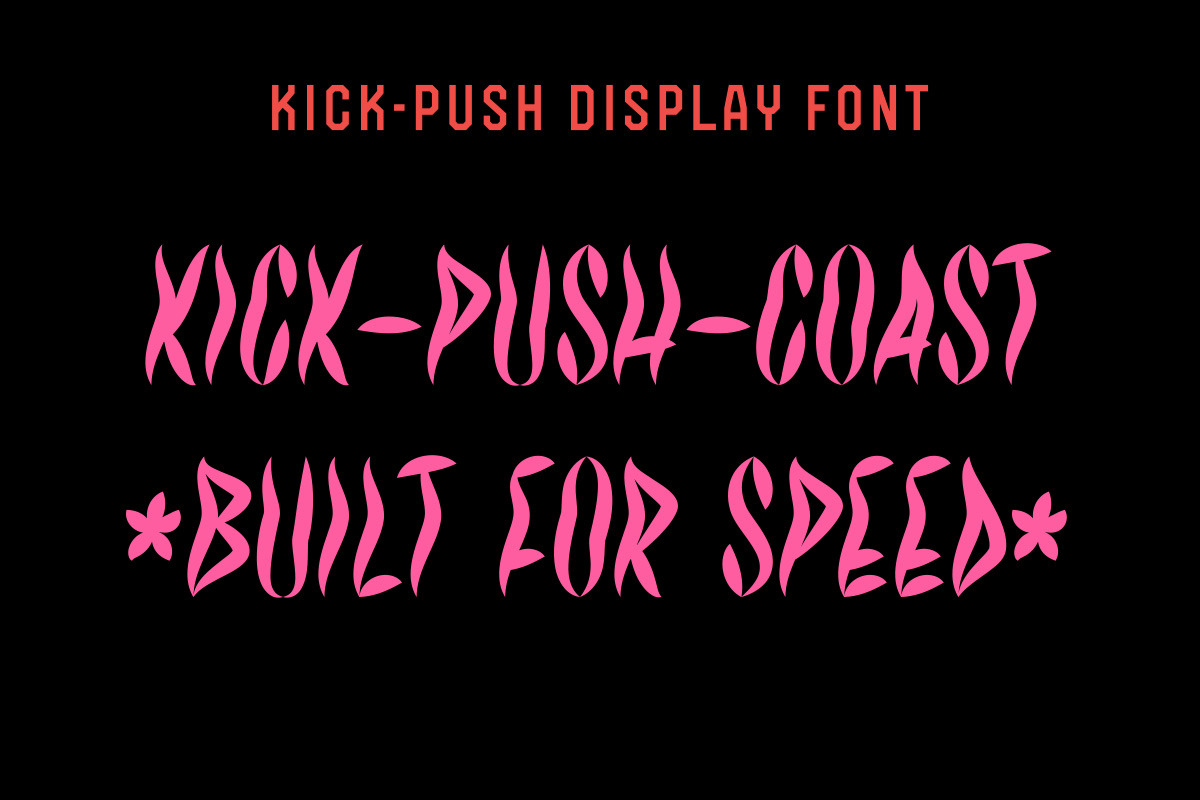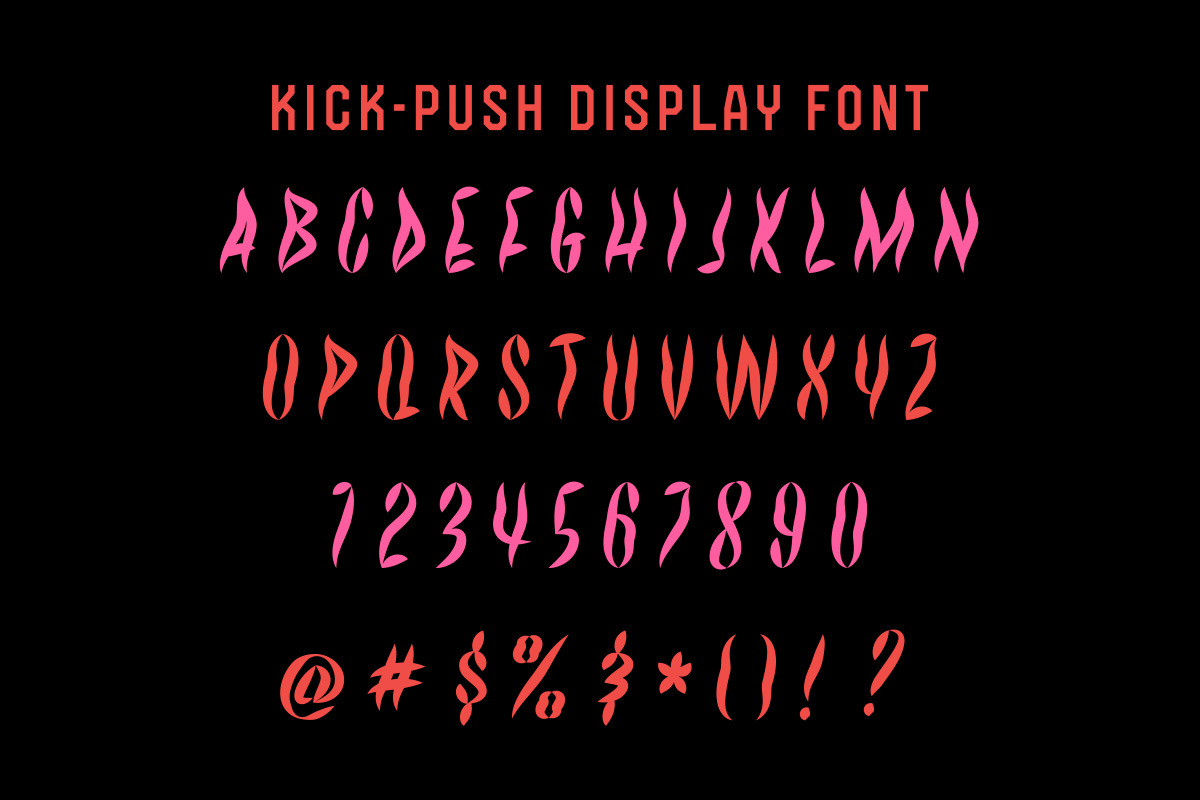
Kick Push
Introducing Kick Push, a mesmerizing and vibrant typeface that captures the essence of speed and psychedelia. Inspired by the electrifying energy of the racetrack and the mind-bending visuals of psychedelic art, Kick Push is a font that pushes boundaries and takes you on a wild journey through time and space.